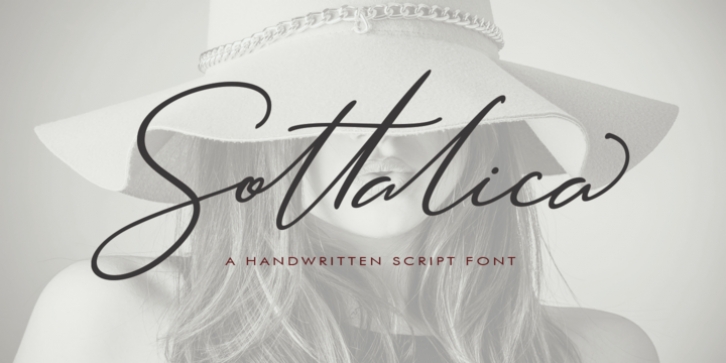
Sottalica Script is a modern calligraphy font with the current handwriting style, this font is perfect for branding, wedding invites, magazines, mugs, business cards, quotes, posters, and more, you can try first if you want to buy this font.
Sottalica Script is equipped with 315 glyphs. and by having many of these glyphs there will be able to choose the letters according to your likes, lots of variations and options for each letter, so you can customize on your design choices.